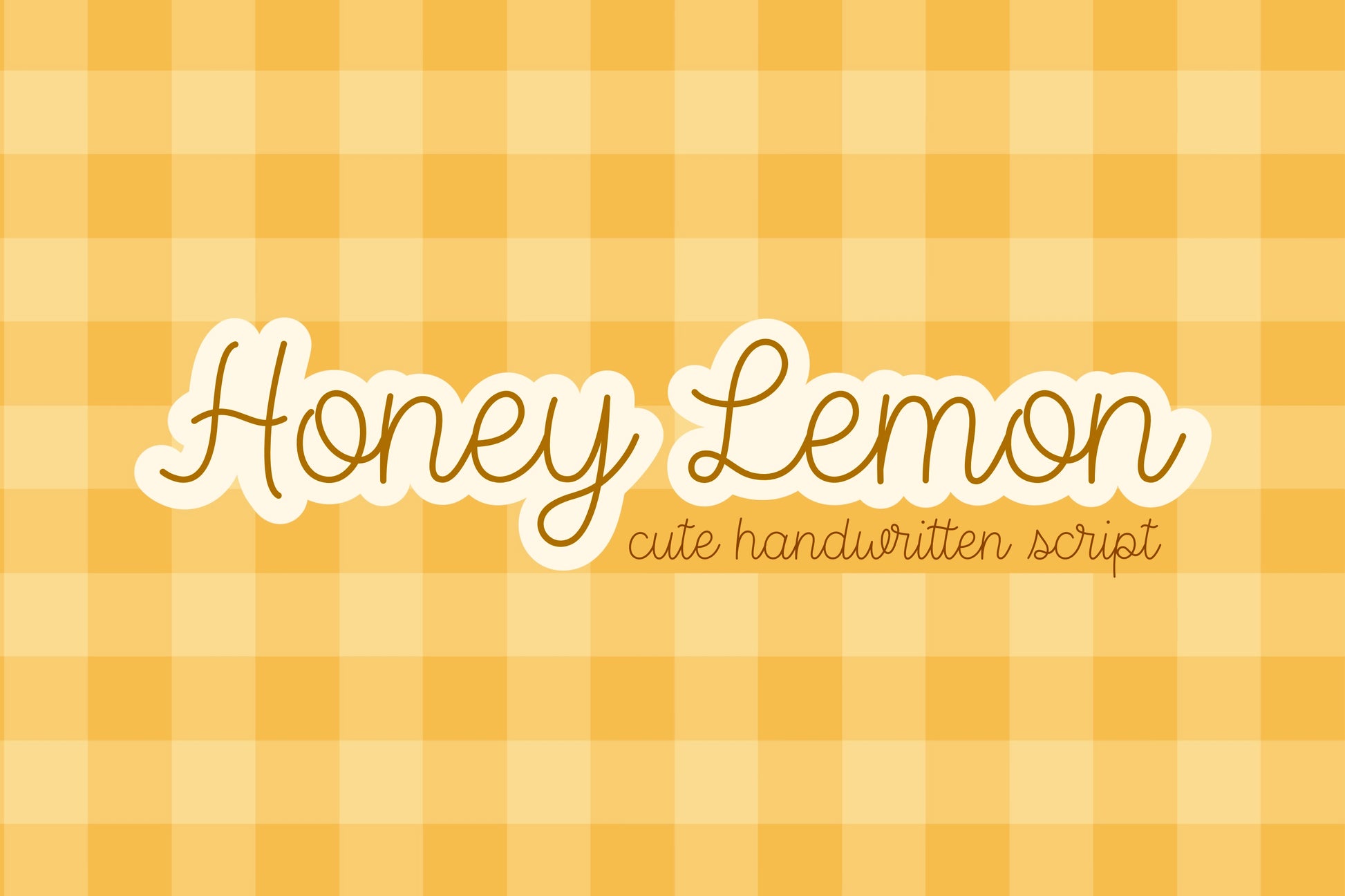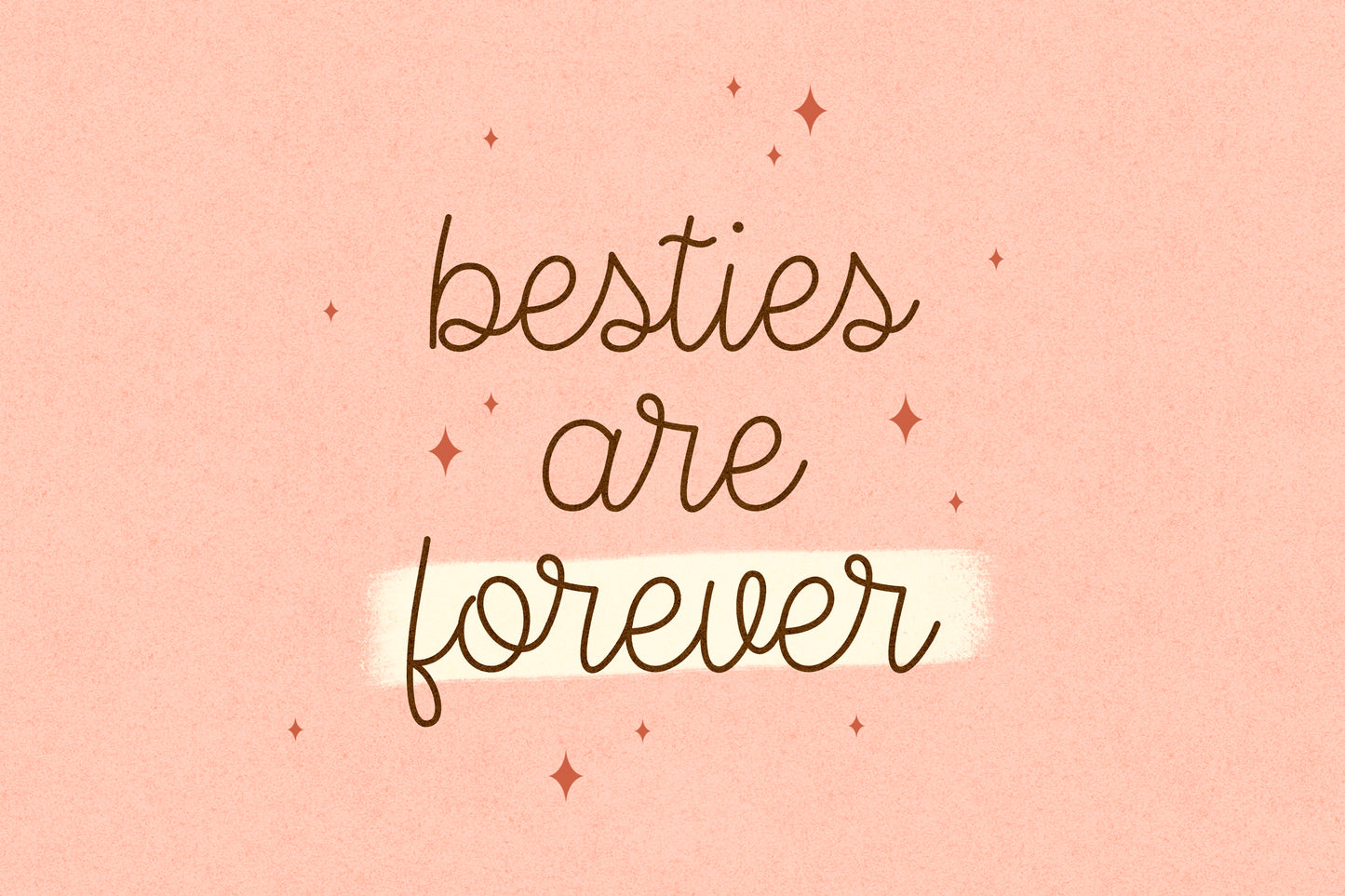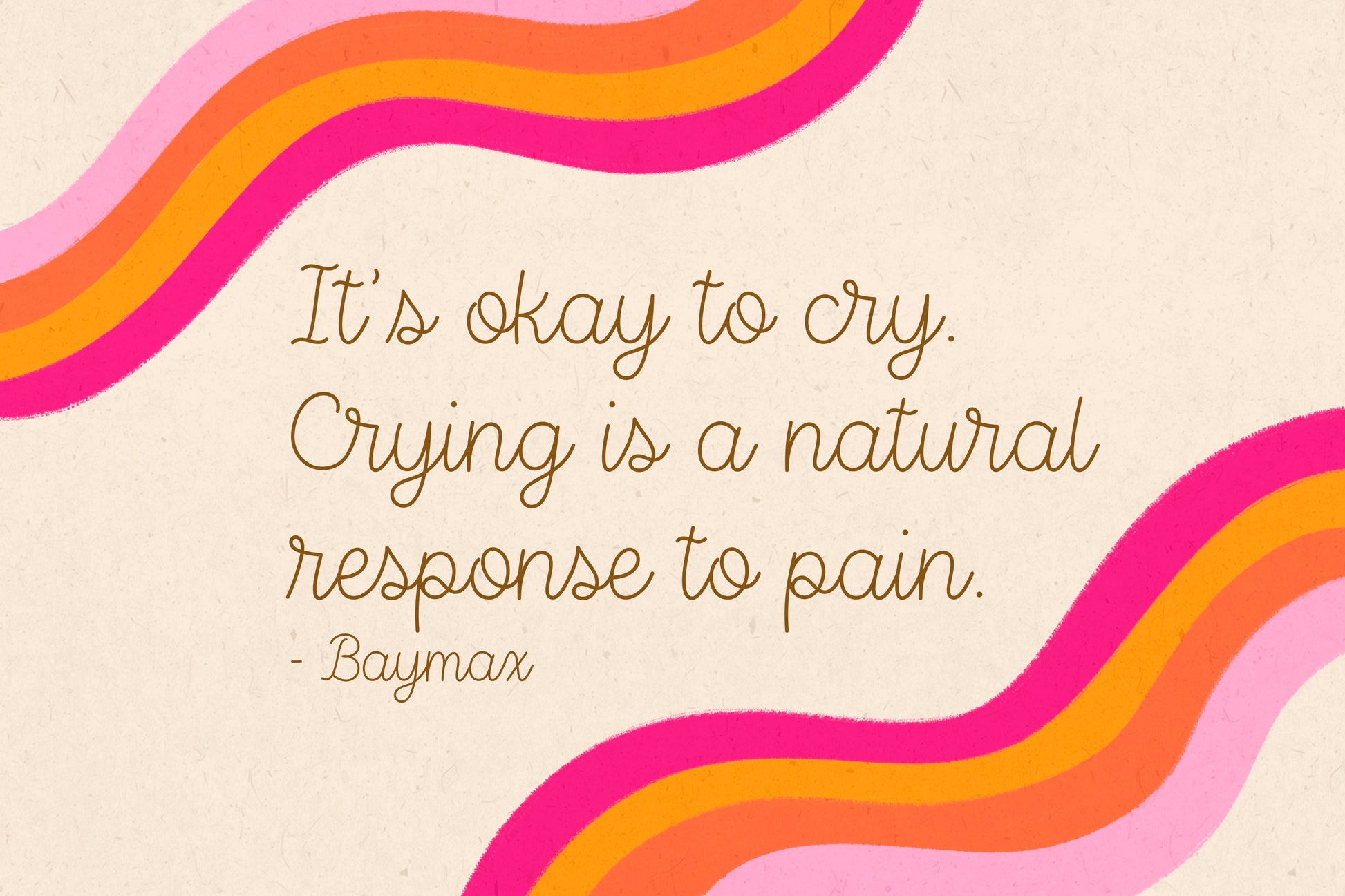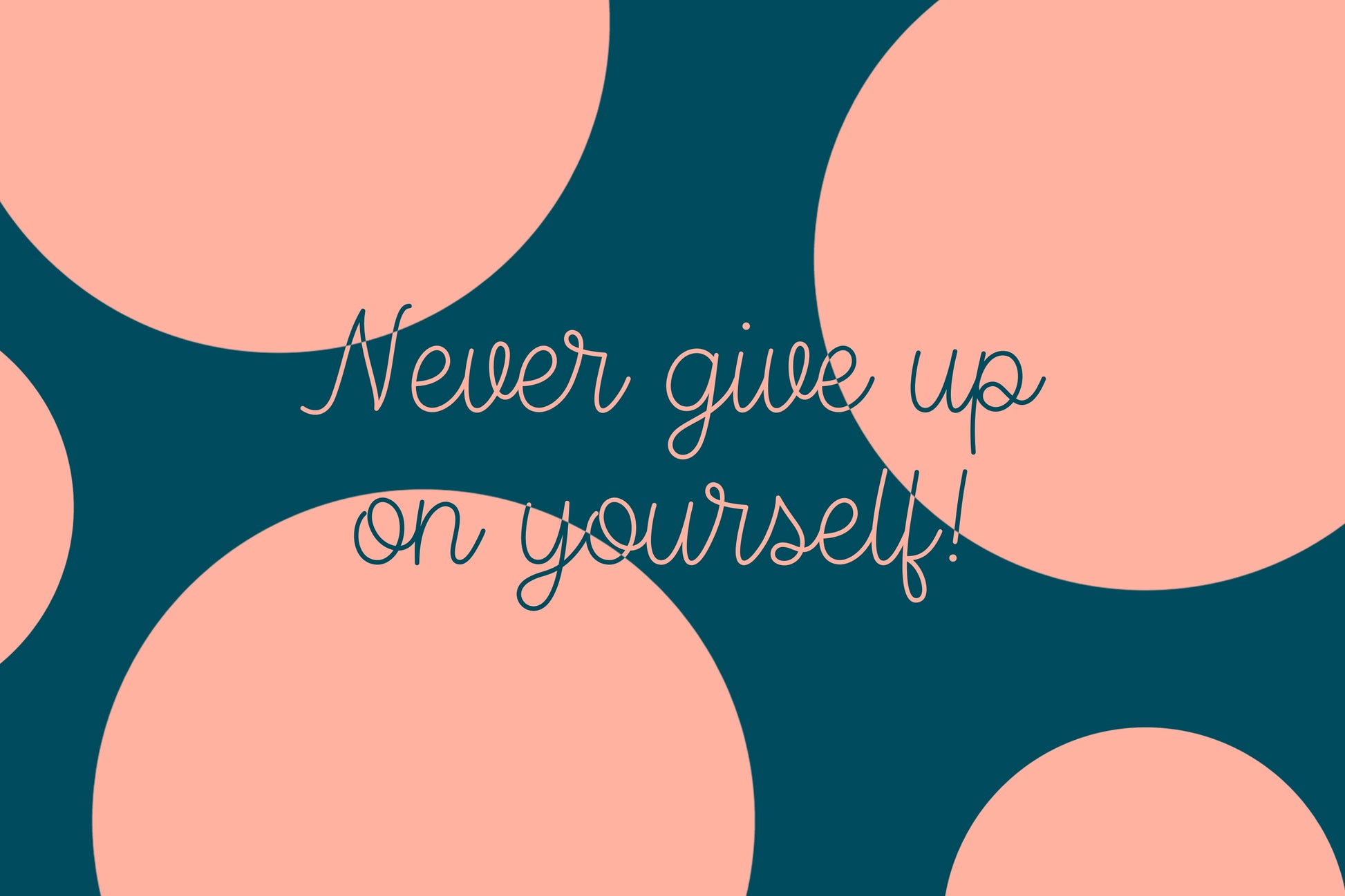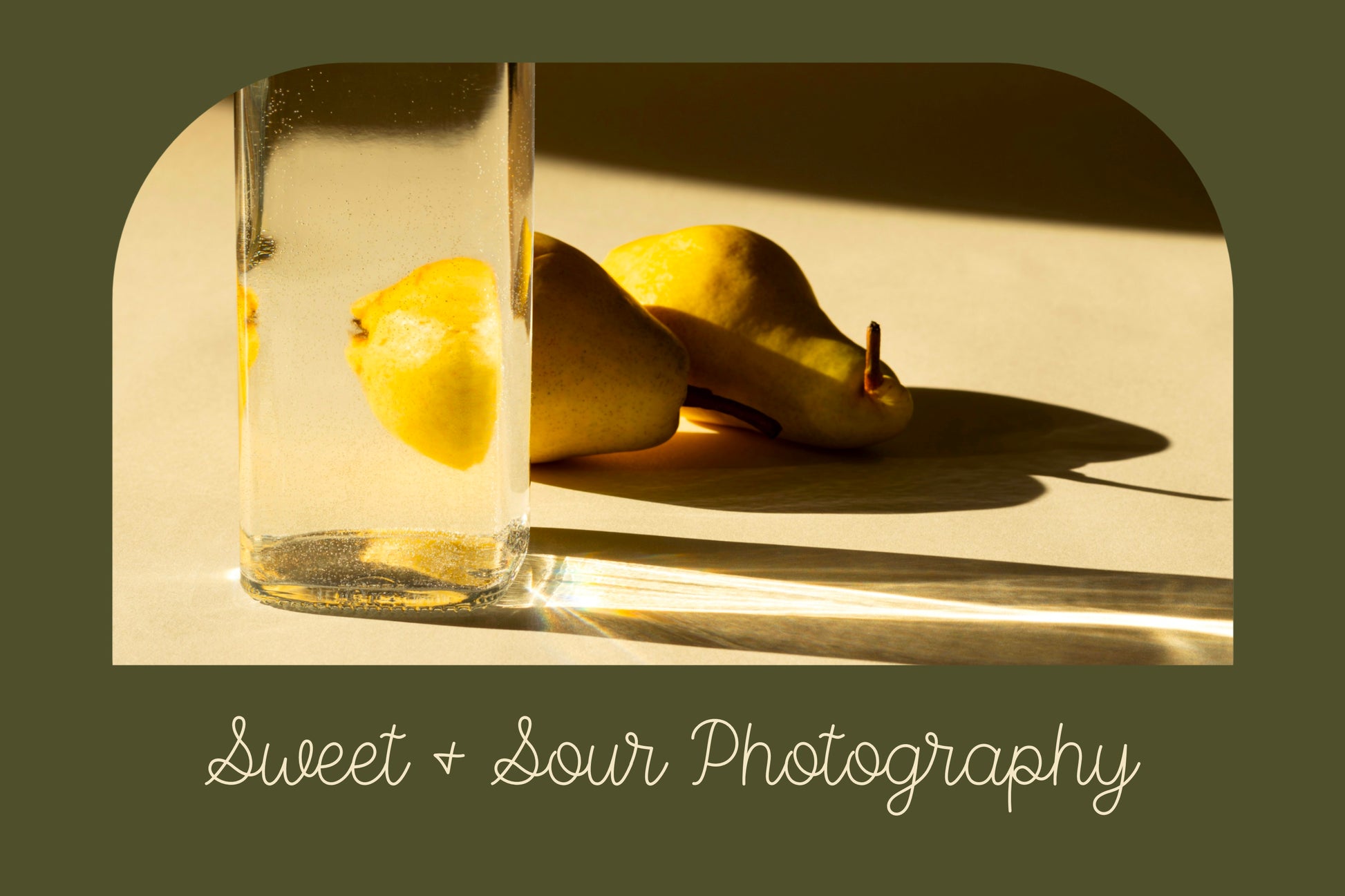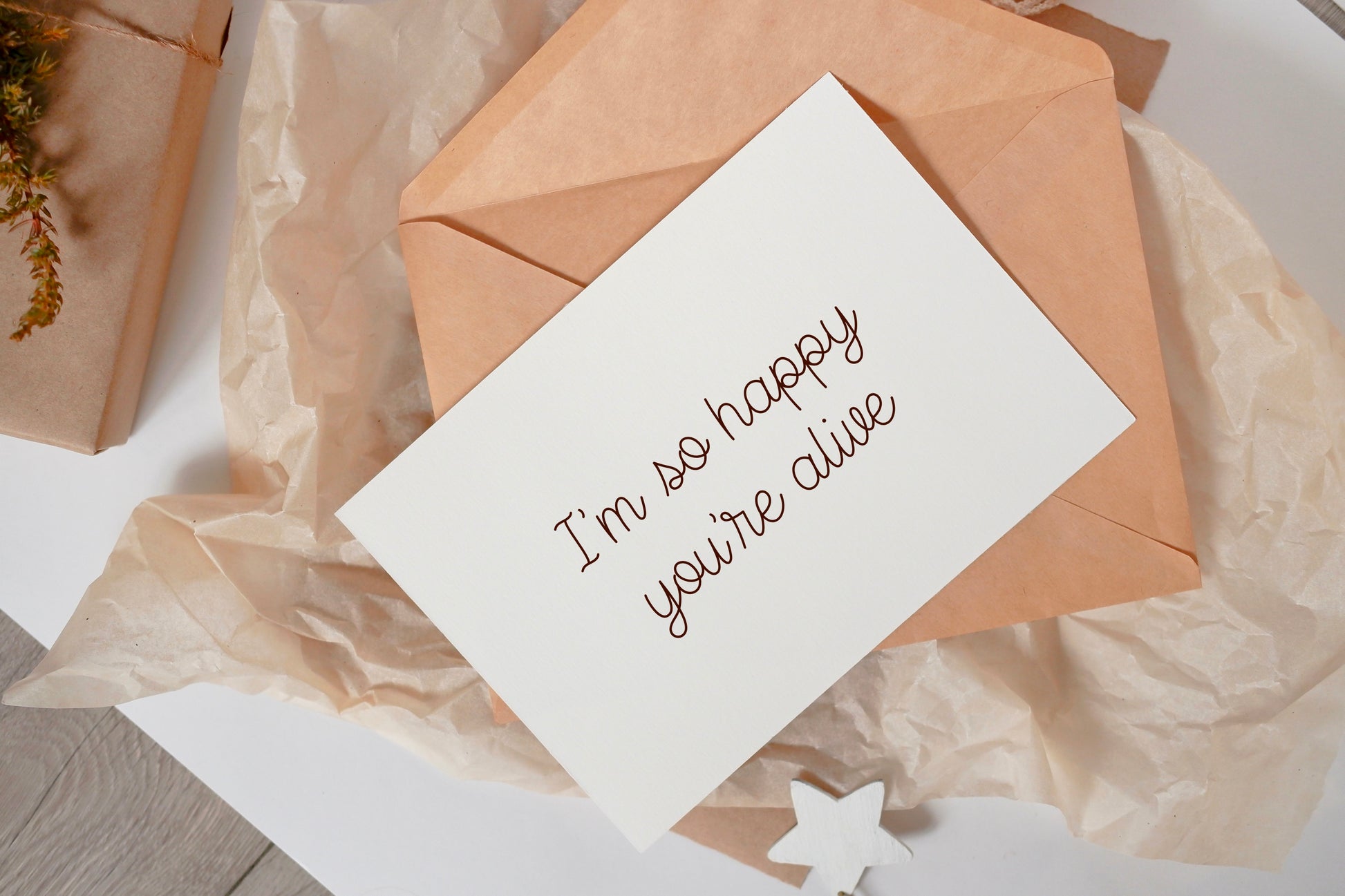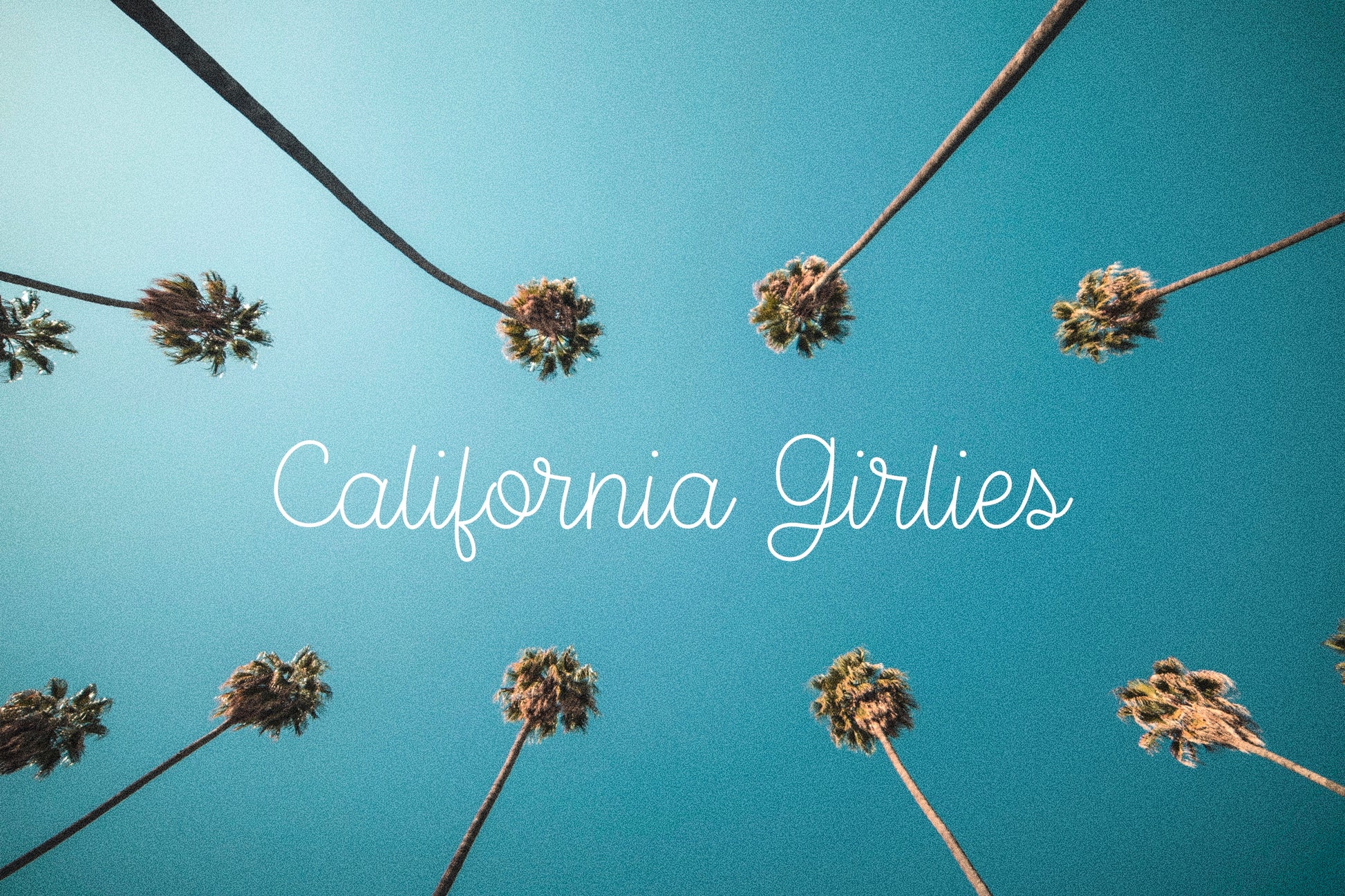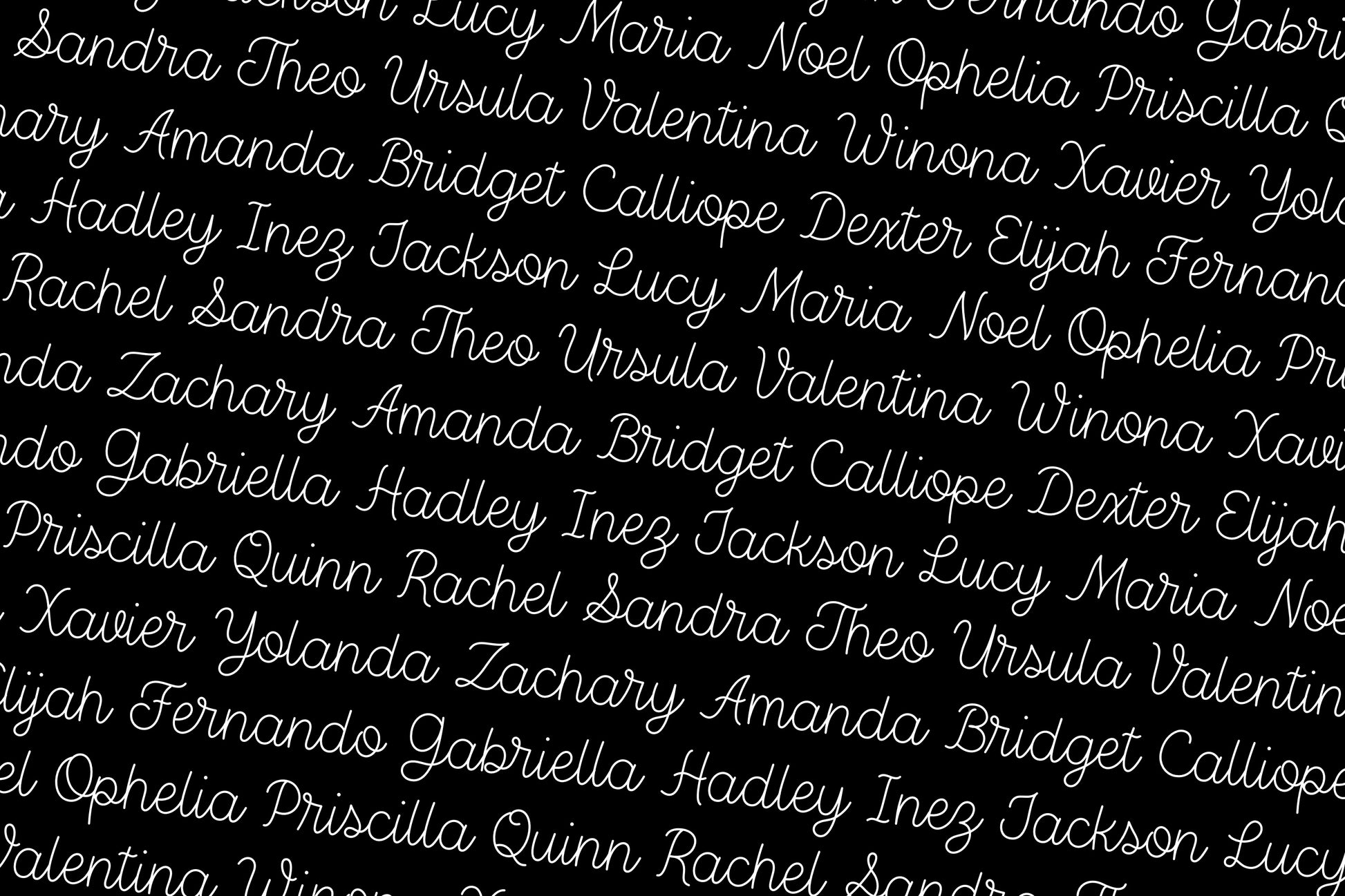
Honey Lemon Cute Script Font
Introducing the cutest new font on the block: Honey Lemon! This beautiful monoline script will add a playful yet elevated touch to any design! It is perfect for any and all logos, branding, invitations, stickers, t-shirts, posters, and much more!